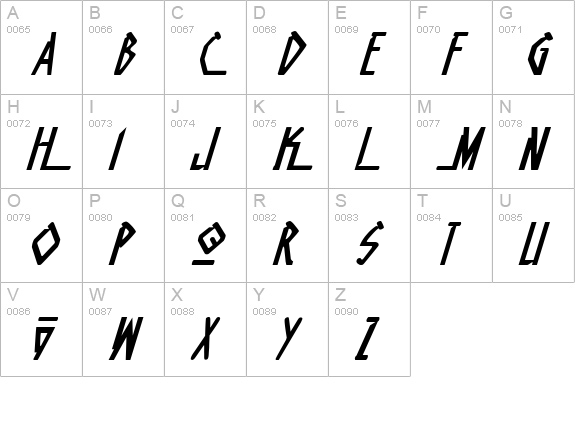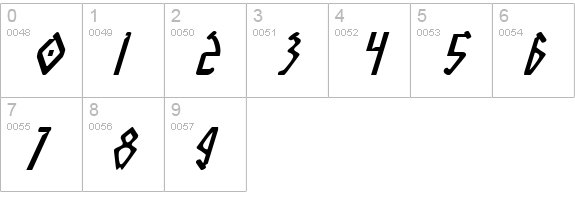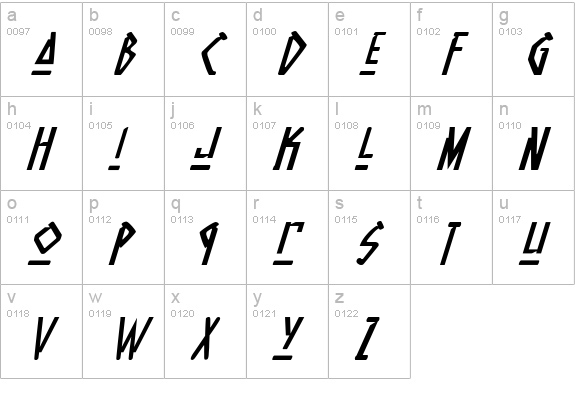
Native Alien Italic is a distinctive, italic variant in the Native typeface family \xE2\x80\x94 well suited to design and typography projects.
Native Alien Italic font is a unique and modern typeface that combines elements of traditional typography with a futuristic twist. Its sleek and stylish design is perfect for adding a touch of sophistication to your projects. The italicized characters give this font a dynamic and energetic feel, making it ideal for use in headings, titles, and other eye-catching designs. What sets Native Alien Italic font apart is not only its striking appearance but also the fact that it is completely free to download. You can get your hands on this cutting-edge font at FontsMarket.com, where you'll find a wide range of free fonts to suit all your design needs. Whether you're working on a branding project, a website design, or any other creative endeavor, Native Alien Italic font is sure to make a bold statement and elevate your work to the next level.